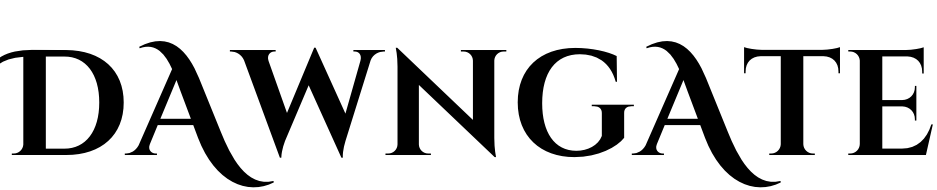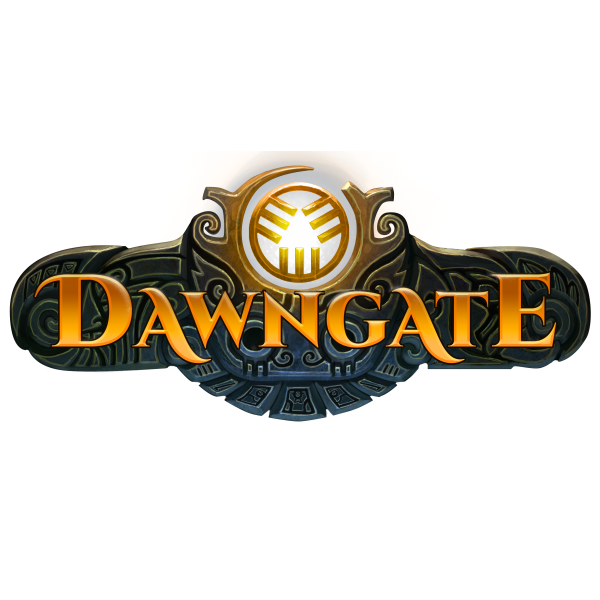
Dawngate Font
Fonts in UseDawngate was a free-to-play MOBA (Multiplayer Online Battle Arena) game developed by Waystone Games.
The game's logo likely utilizes the Cinzel font, which draws inspiration from ancient Roman inscriptions. the font is available for free download from the Fonts Used Section.